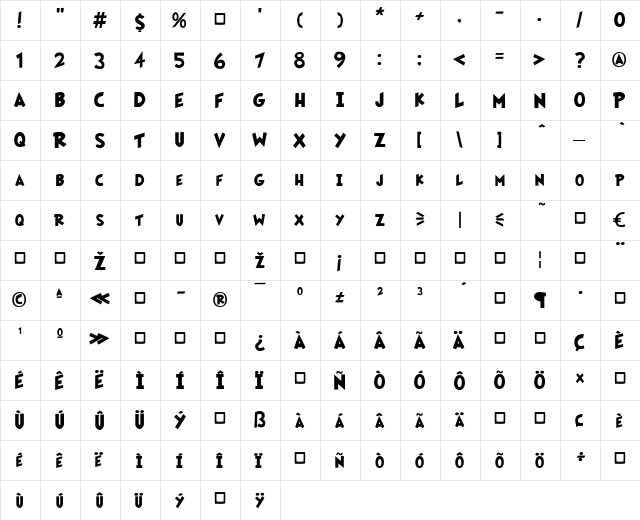
Fairly OddFont Fairly OddFont
Design Context for Fairly OddFont Typeface
Fairly OddFont is a composed and adaptable typeface that performs quietly and consistently across a wide range of design contexts.